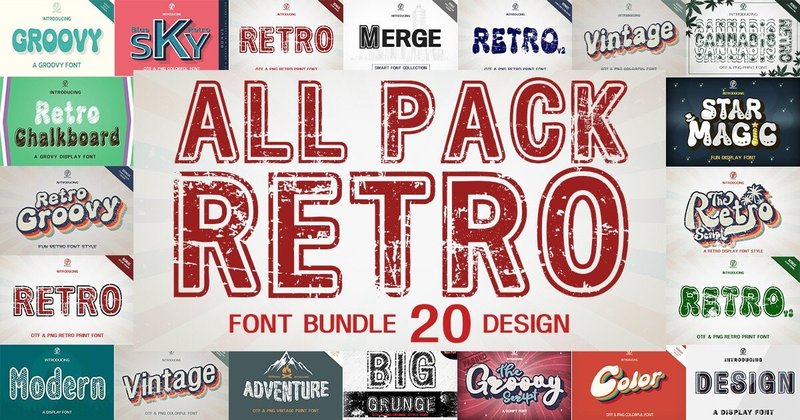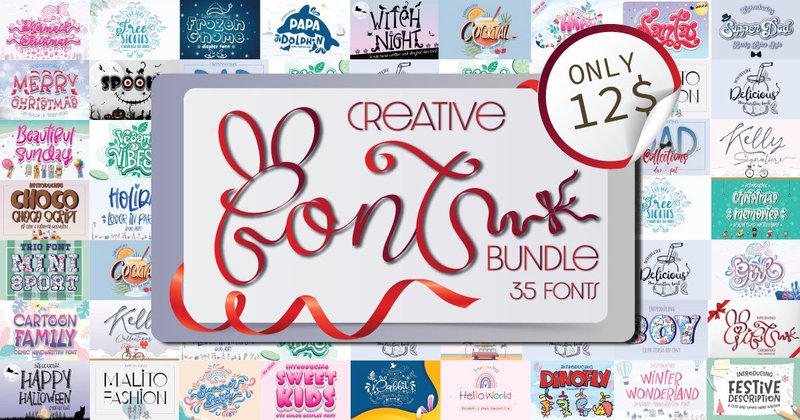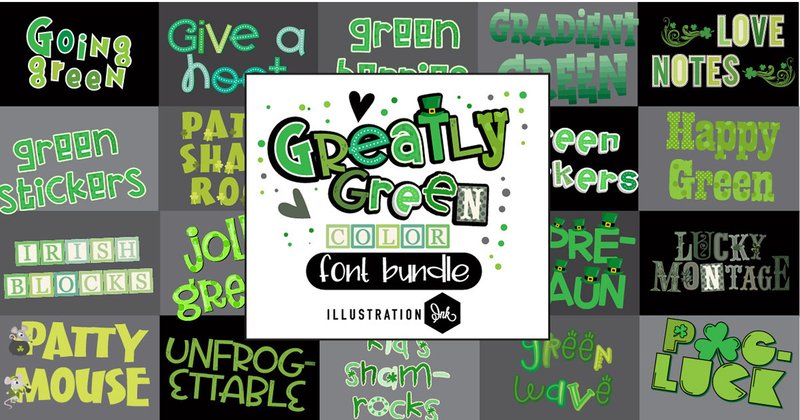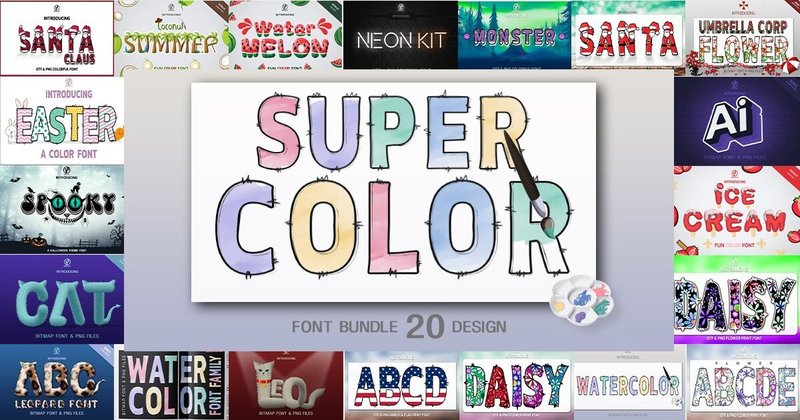
😱🎨 Unleash Your Creativity: The 6 Best Color Font Bundles of 2026
Still manually adding gradients and textures to flat text — layer by layer, hour by hour? Color font bundles eliminate that entirely. Every typeface below already has the colors, textures, and depth built in. Pick your style, type your headline, and you’re done. No effects. No extra steps. No wasted afternoon.
Top 6 Color Font Bundles — 2026 Edition
🏆 Top 5 At a Glance — Quick Comparison
Not sure which bundle fits your project? This table matches each collection to the use case it dominates:
Bundle Fonts Included Style / Mood Top Use Case SVG Format
Boom Boom 20 fonts Patriotic / Americana Holiday graphics, apparel, events ✅
Super Color 20 fonts Bold / Modern Branding, posters, social media ✅
Creative Bundle 35 fonts Mixed styles Cricut, Etsy branding, invitations ✅
Pastel Party 20 fonts Soft / Whimsical Baby showers, bakeries, Instagram ✅
Greatly Green 20 fonts Organic / Artisan Eco brands, wellness, farm menus ✅
🇺🇸 Patriotic & Americana
⭐ EDITOR’S PICK — Best for Holiday & Event Graphics
1. Boom Boom Full Color Font Bundle — 20 Hand-Crafted Patriotic Fonts with Stars, Stripes & Texture Built In
Boom Boom Full Color Font Bundle (by Illustration Ink)
Most patriotic designs require you to manually add stripes, star textures, and color effects on top of a plain font — which means 45 minutes of layering for one headline. Boom Boom skips all of that. Every one of the 20 fonts already has reds, whites, blues, stars, and hand-painted textures embedded in the characters. You type the word, and the design is done.
What makes it stand apart from generic “American flag” fonts is the hand-crafted quality — each letterform has an intentional, slightly imperfect warmth that feels artisan rather than clipart. That’s the difference between a design that looks custom and one that looks downloaded.
What’s Inside:
• 20 unique OpenType-SVG fonts with patriotic stars, stripes, and hand-painted textures
• Full-color detail built into every character — no manual effects required
• Authentic, whimsical letterforms with genuine handmade character
Best For:
• Graphic designers creating 4th of July, Memorial Day, and Veterans Day content on tight deadlines who can’t spend an hour on a single headline
• Etsy print-on-demand sellers building a seasonal patriotic apparel line and needing fonts that look custom-printed rather than generic
• Event organizers who produce flyers, banners, and signage for summer festivals, BBQs, and community parades and want everything to feel cohesive
• Political campaign and veteran-focused brand designers who need type that communicates pride rather than decoration
💥 Bold & Modern Multi-Style
⭐ EDITOR’S PICK — Best All-Purpose Color Font Collection
2. Super Color Font Bundle — 20 High-Energy Typefaces with Gradients, Textures & Multi-Hue Detail
Super Color Font Bundle (by NPNaay)
The practical problem this bundle solves: achieving text that looks like it took hours of Photoshop work — gradients, depth, multi-color fills — in the time it takes to type a word. The Super Color Font Bundle delivers 20 distinct typefaces where all that complexity is pre-built into each character via OpenType-SVG technology. You get the finished look without the process.
The 20 fonts cover a wide stylistic range — from bold, chunky display faces to more expressive, energetic styles — giving you flexibility across different projects without needing to purchase additional collections. It’s genuinely one of the most versatile entries in this roundup.
What’s Inside:
• 20 distinct color fonts with intricate gradients, textures, and multi-hued character detail
• OpenType-SVG format for high-resolution, print-quality output
• Wide stylistic range covering bold display, expressive, and energetic styles
• Single-bundle purchase — no piecing together separate font packs
Best For:
• Freelance brand designers who need a library of bold, modern typefaces that impress clients without requiring elaborate Photoshop text effects in every presentation
• Social media managers running multiple brand accounts who need eye-catching headline fonts that stop the scroll without looking over-designed
• Children’s product designers — apparel, toys, packaging — where vibrant, personality-filled type is a functional requirement, not a stylistic choice
• Event poster and festival flyer designers who work to tight turnarounds and need fonts that are ready to use, not ready to layer
🕹️ Retro & Vintage
⭐ EDITOR’S PICK — Best for Retro Branding & Merch
3. All Pack Retro Font Bundle — 20 Vintage-Inspired Fonts from Groovy to Bold, with Multi-Tonal Textures
Six bundles. Six distinct visual languages — patriotic, bold modern, retro, versatile, pastel, and organic. The comparison table at the top will tell you which one matches your current project in under a minute. Every bundle here saves you the hours of manual layering, texture work, and color effects that standard fonts require. Pick the one that fits, install it, and your headline is ready before your coffee gets cold.